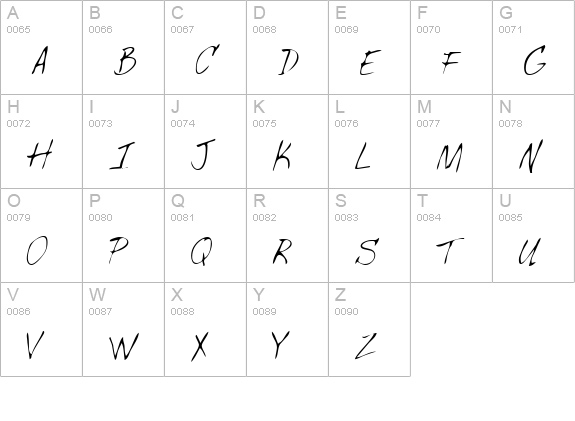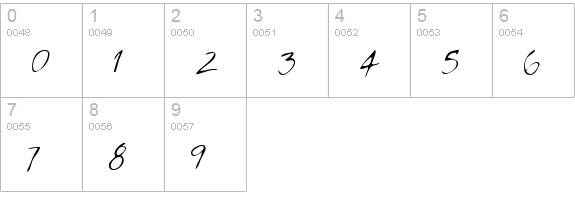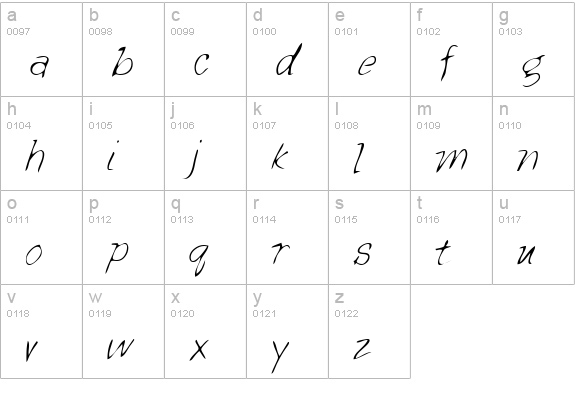
GeorgesHand Regular is the standard, neutral variant in the GeorgesHand typeface family \xE2\x80\x94 well suited to general body text, paragraphs, and standard typographic work.
GeorgesHand Regular font is a charming and elegant typeface that exudes a sense of sophistication and creativity. With its smooth lines and flowing curves, this font is perfect for adding a touch of personality to any project. Whether you're designing a wedding invitation, a logo, or a poster, GeorgesHand Regular is sure to make a statement. What's even better is that GeorgesHand Regular font is available for free download at FontsMarket.com. So go ahead and elevate your designs with this beautiful and versatile font today!